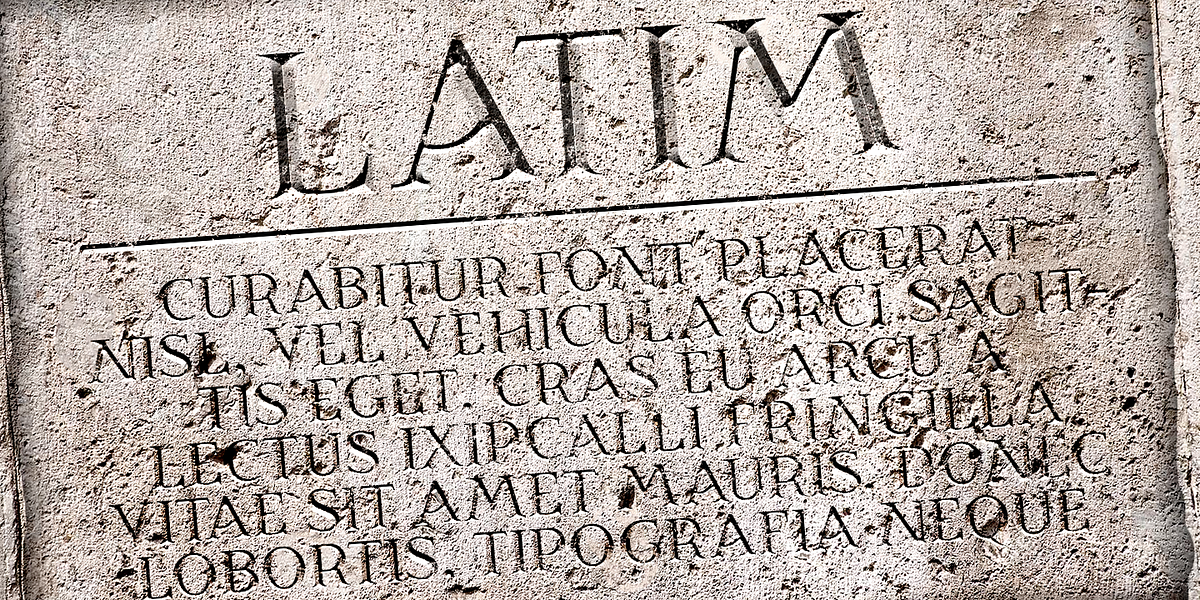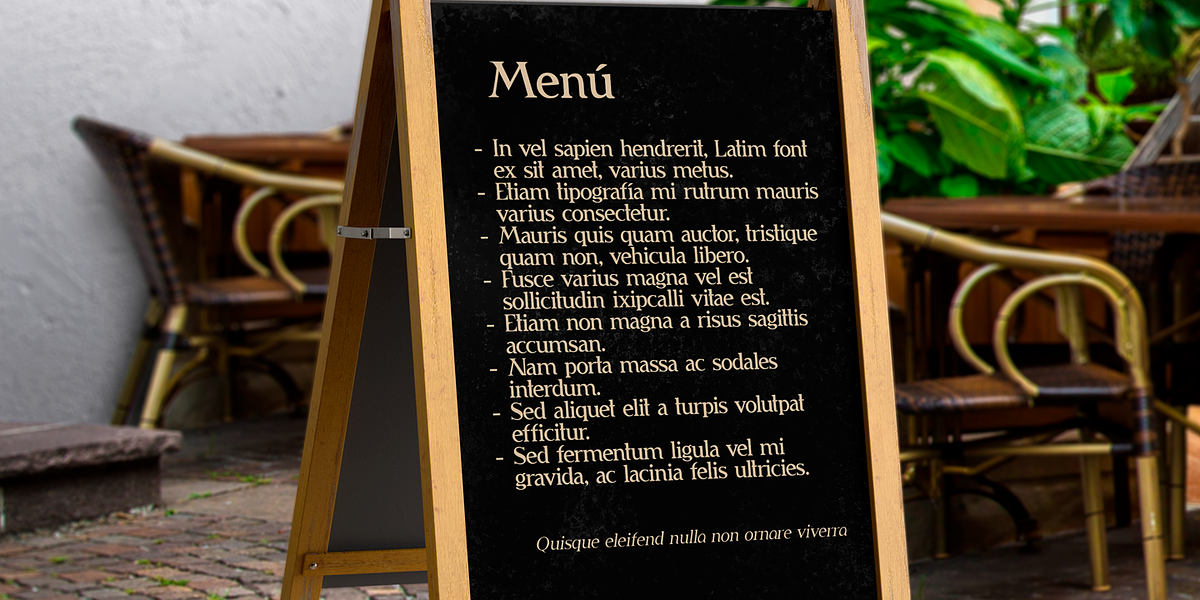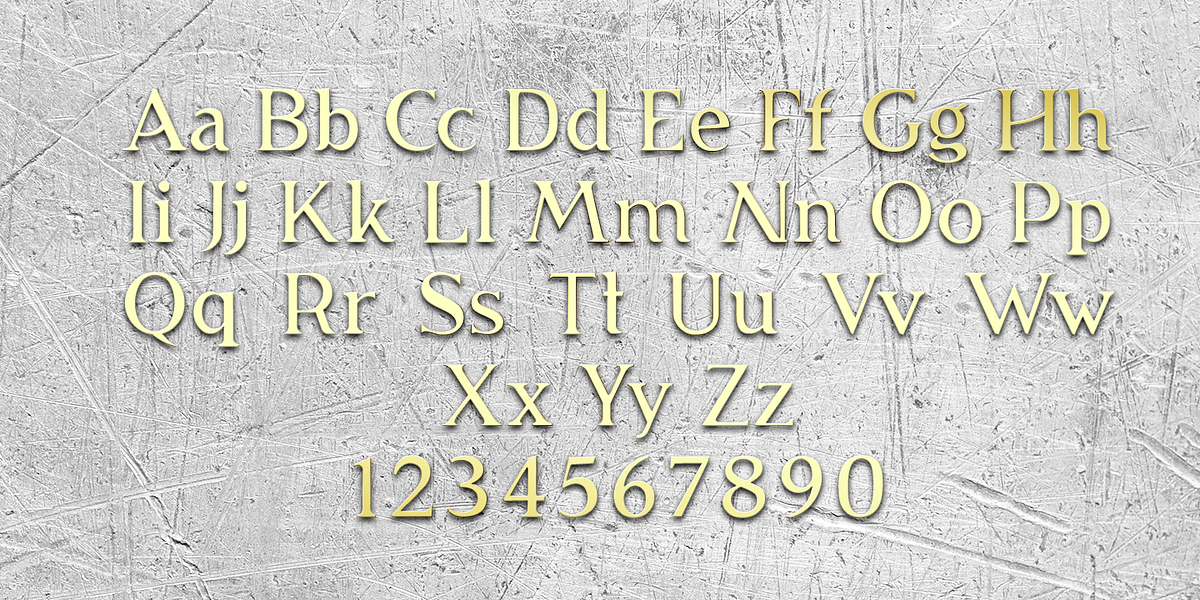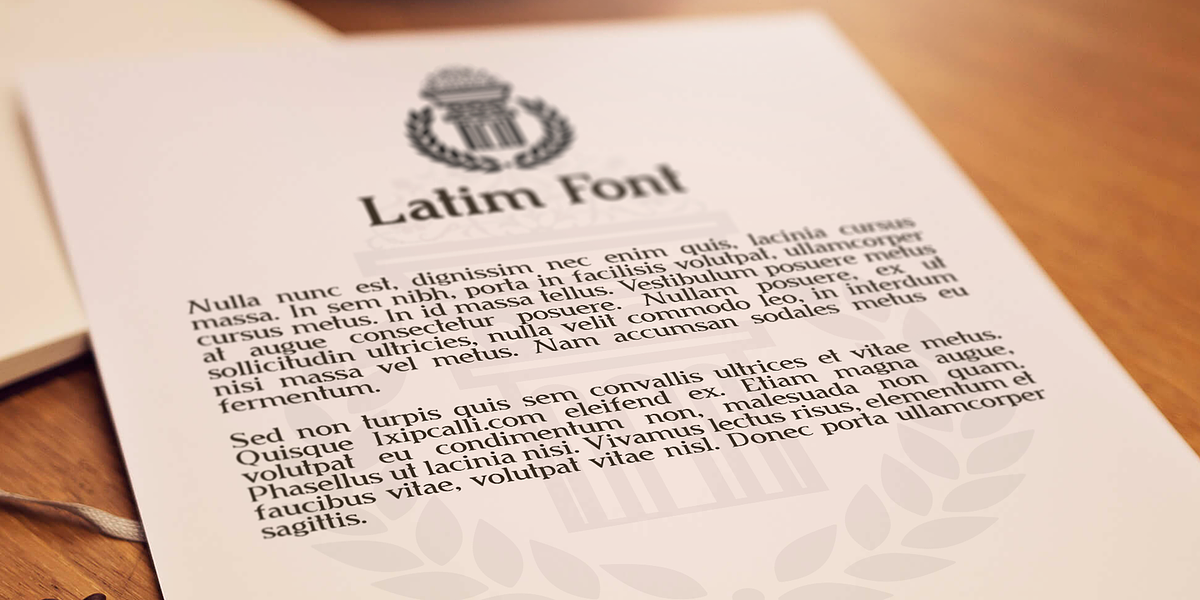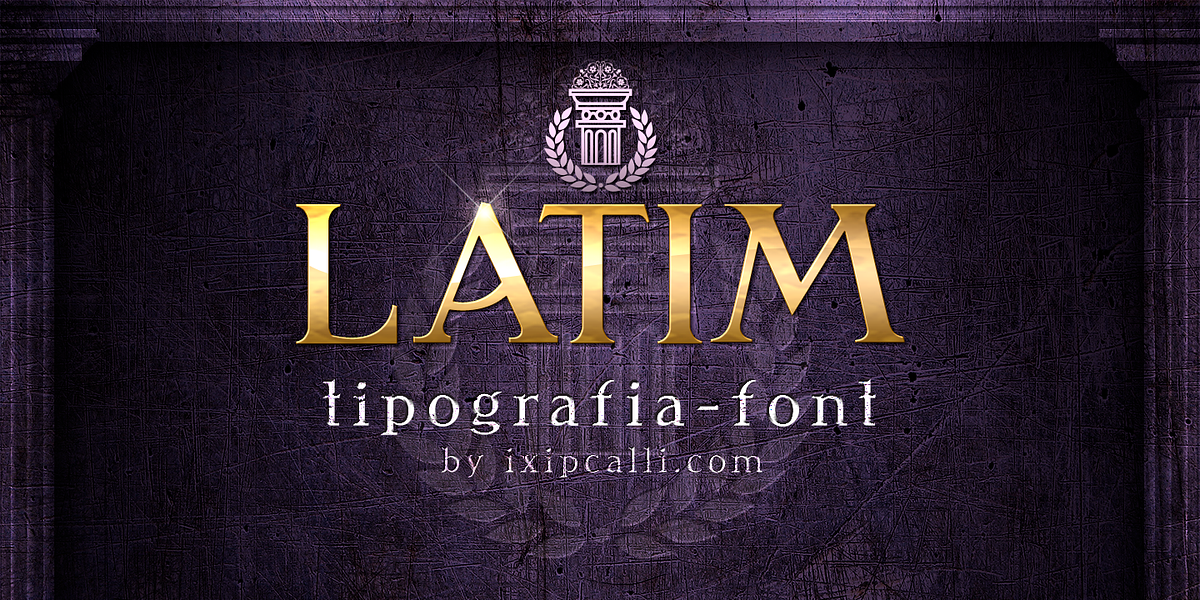
Latim
Latim is a typeface inspired by the Latin Romanesque style. The font expands its use by providing four weights from thin to bold; while the thinner weights have reduced contrast and optical corrections to create a warm and soft appearance. In large font sizes, you can appreciate the shapes of the letters, while the same restraint and focus create a uniform texture for small font sizes and long reading.